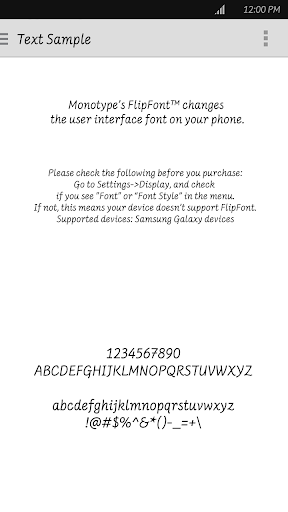
RtSilverFrost™ Latin FlipFont
RtSilverFrost is a neat handwriting style font with natural movement and good readability. It will make your device look cosy and cheerful. Enjoy!